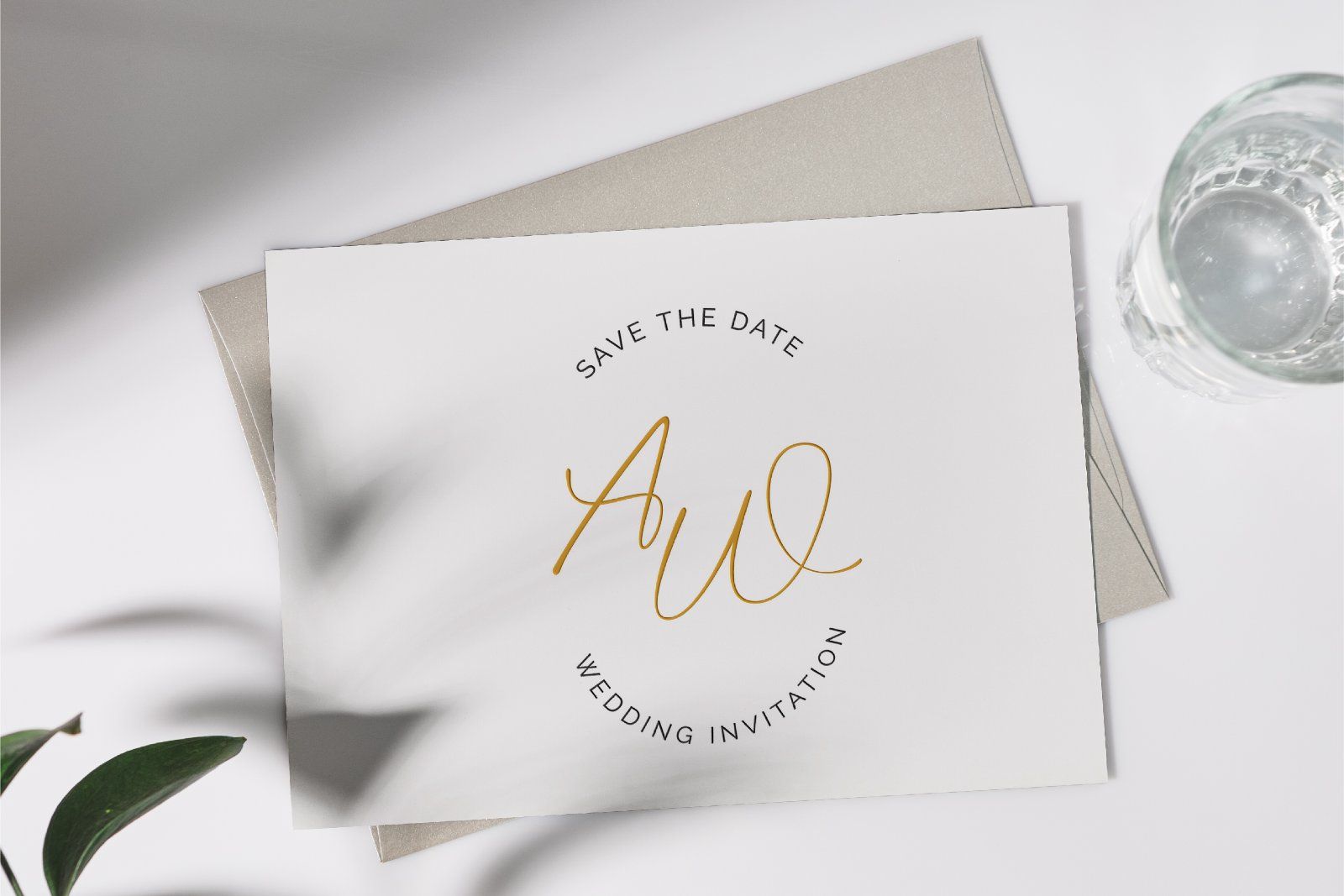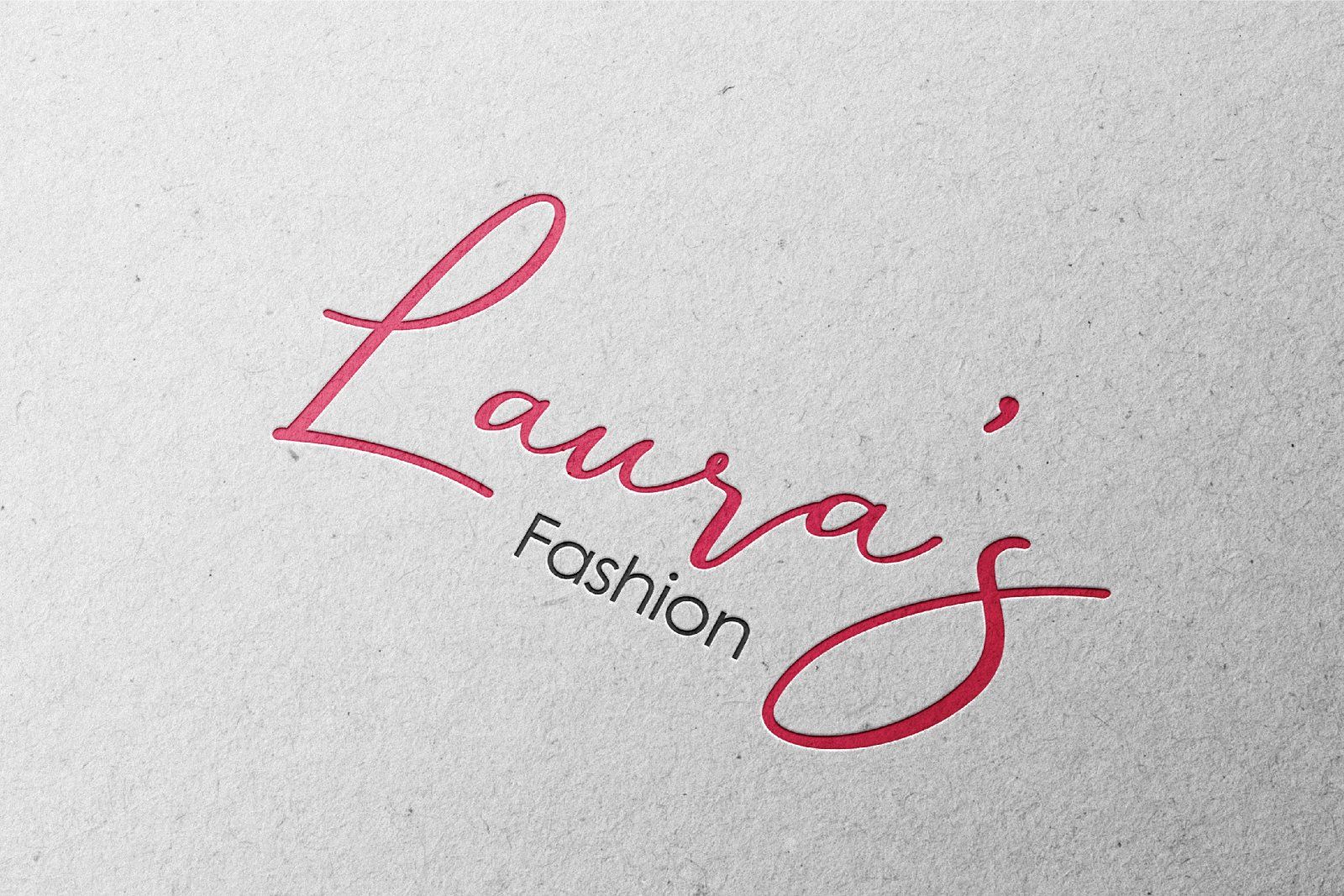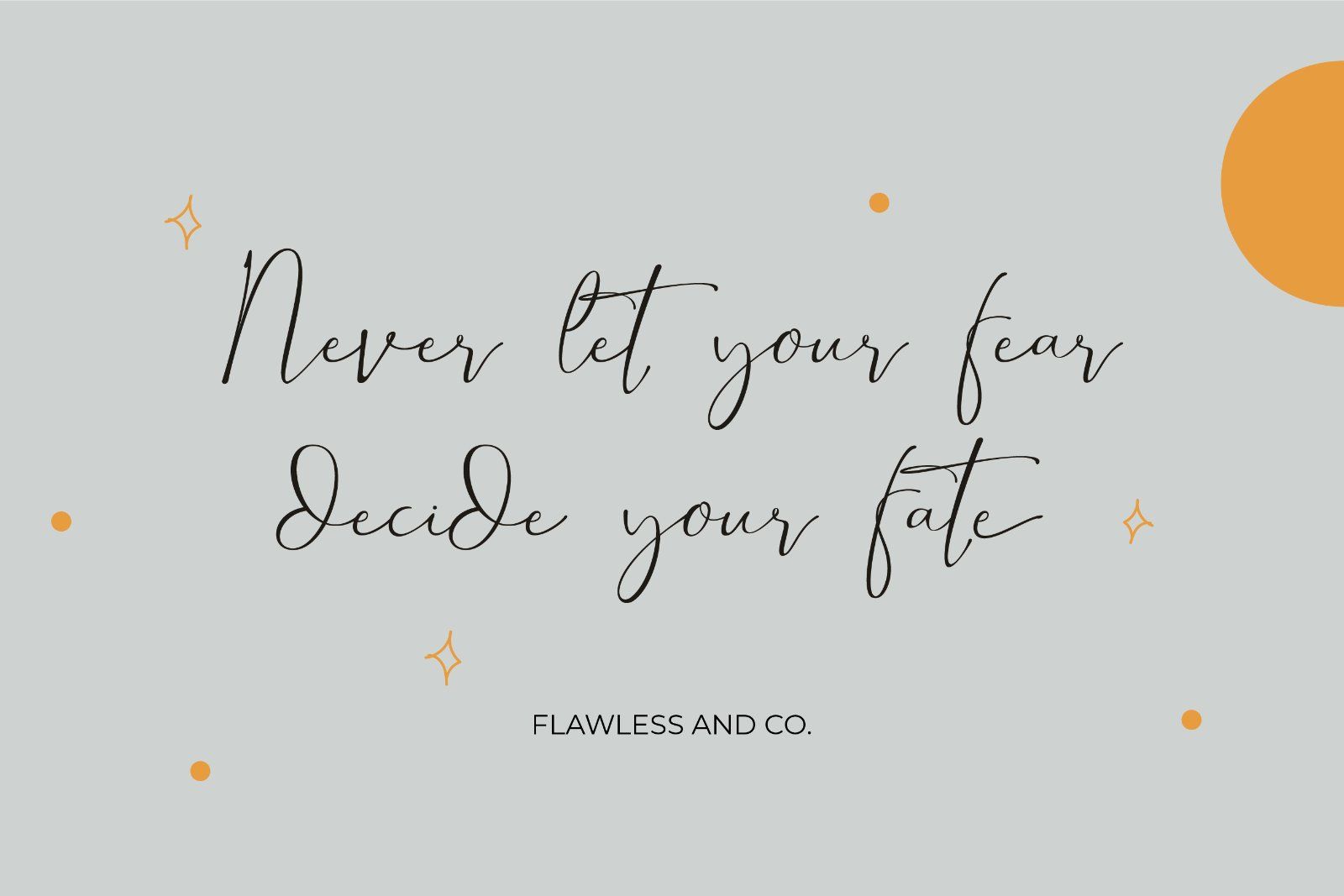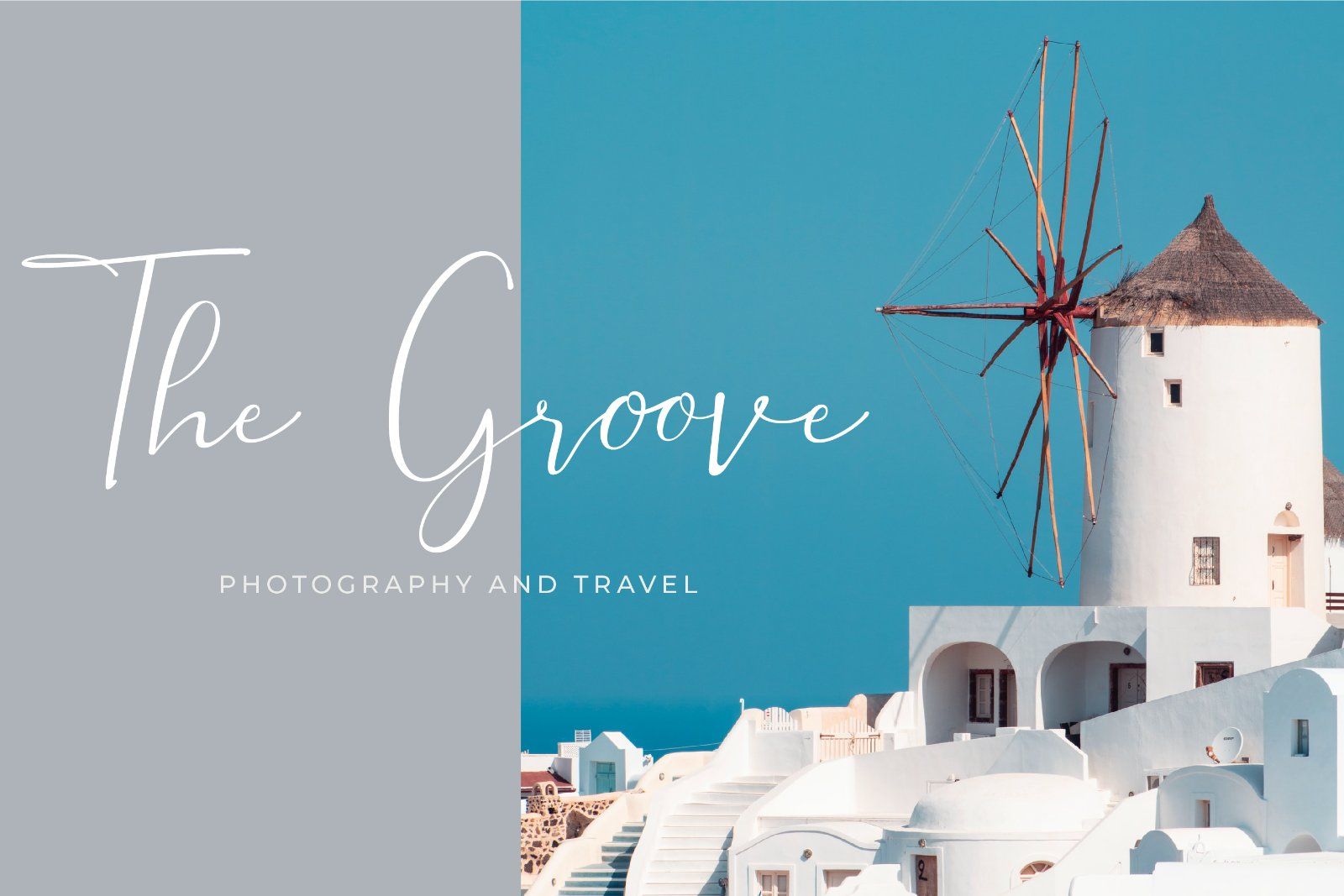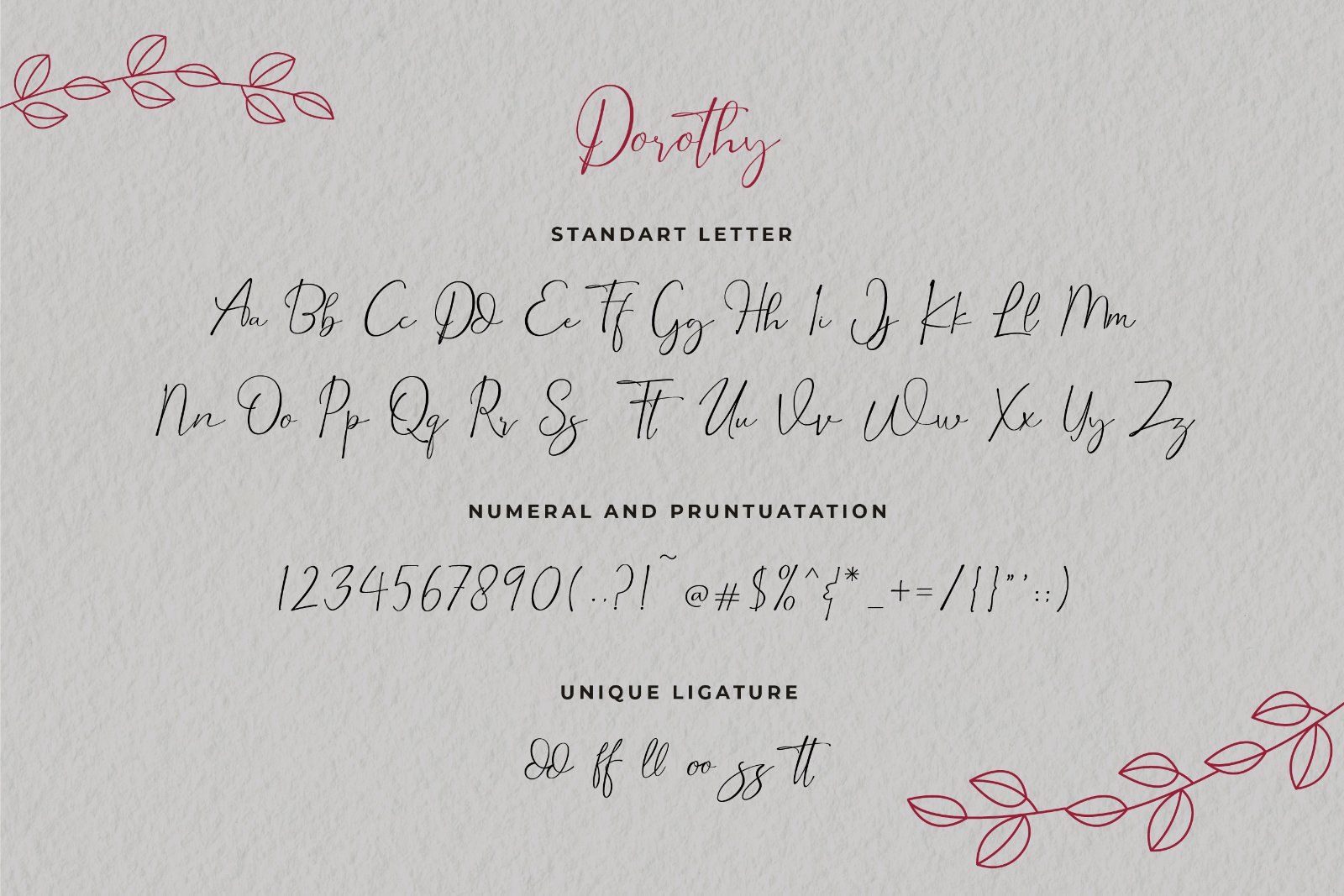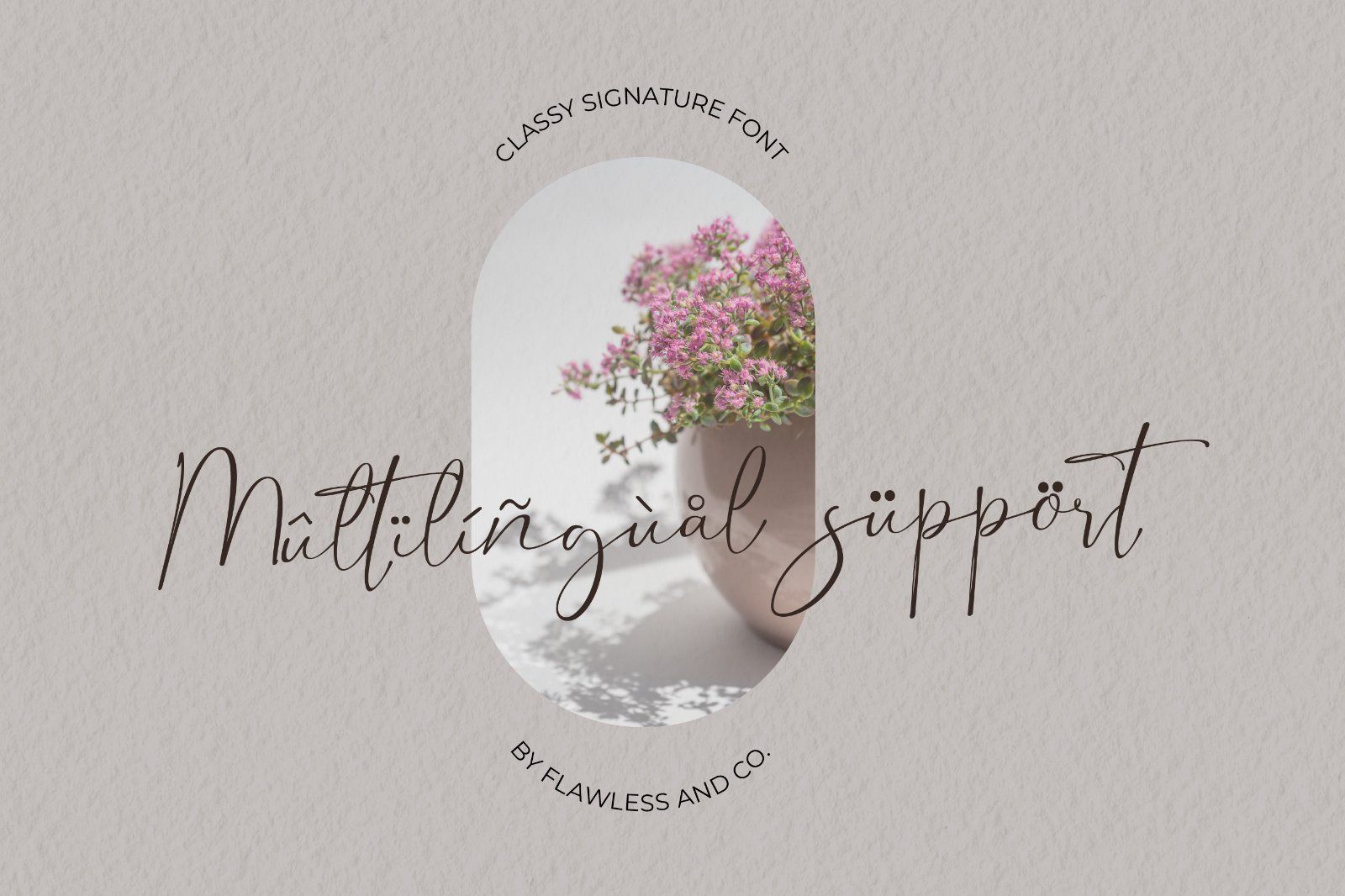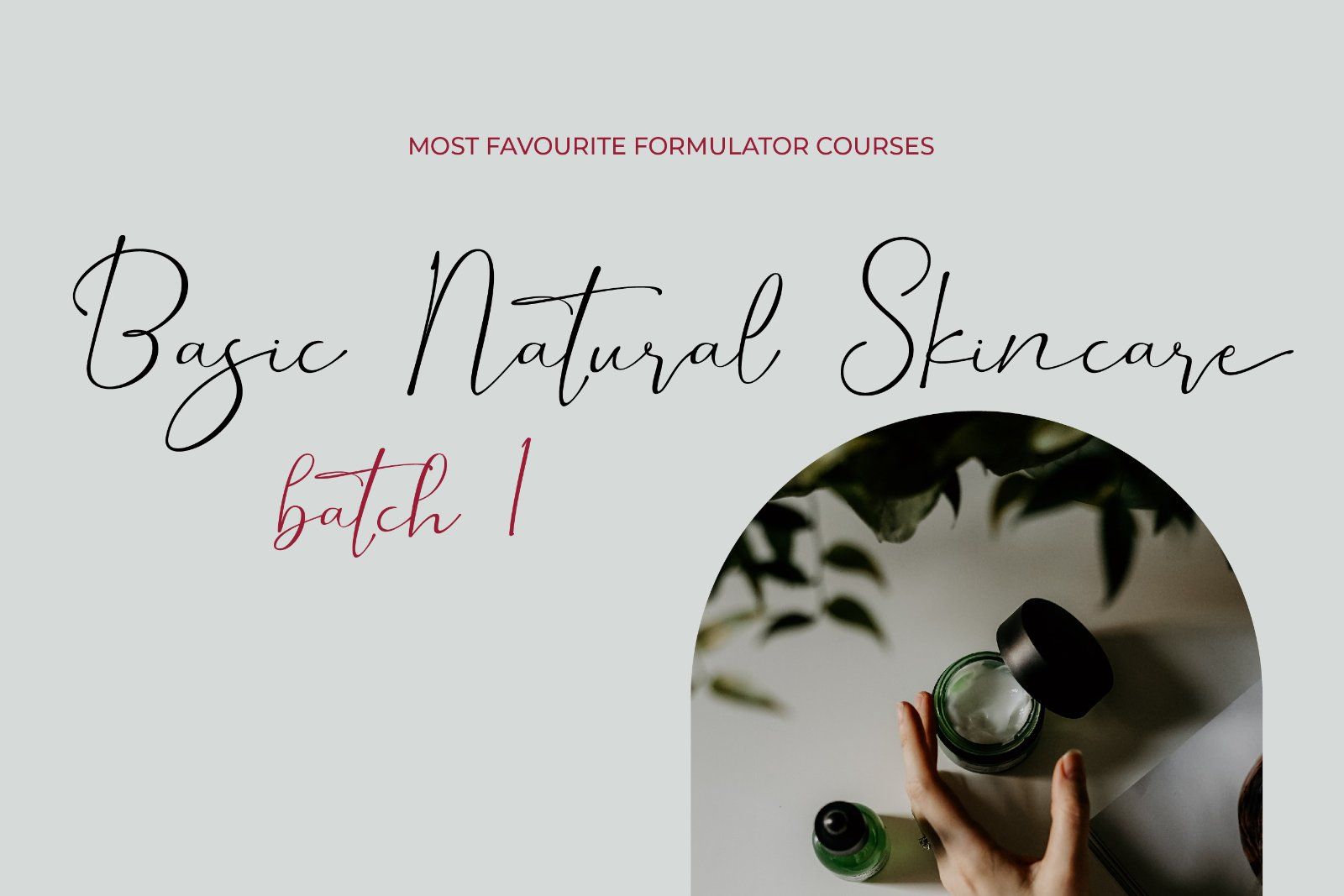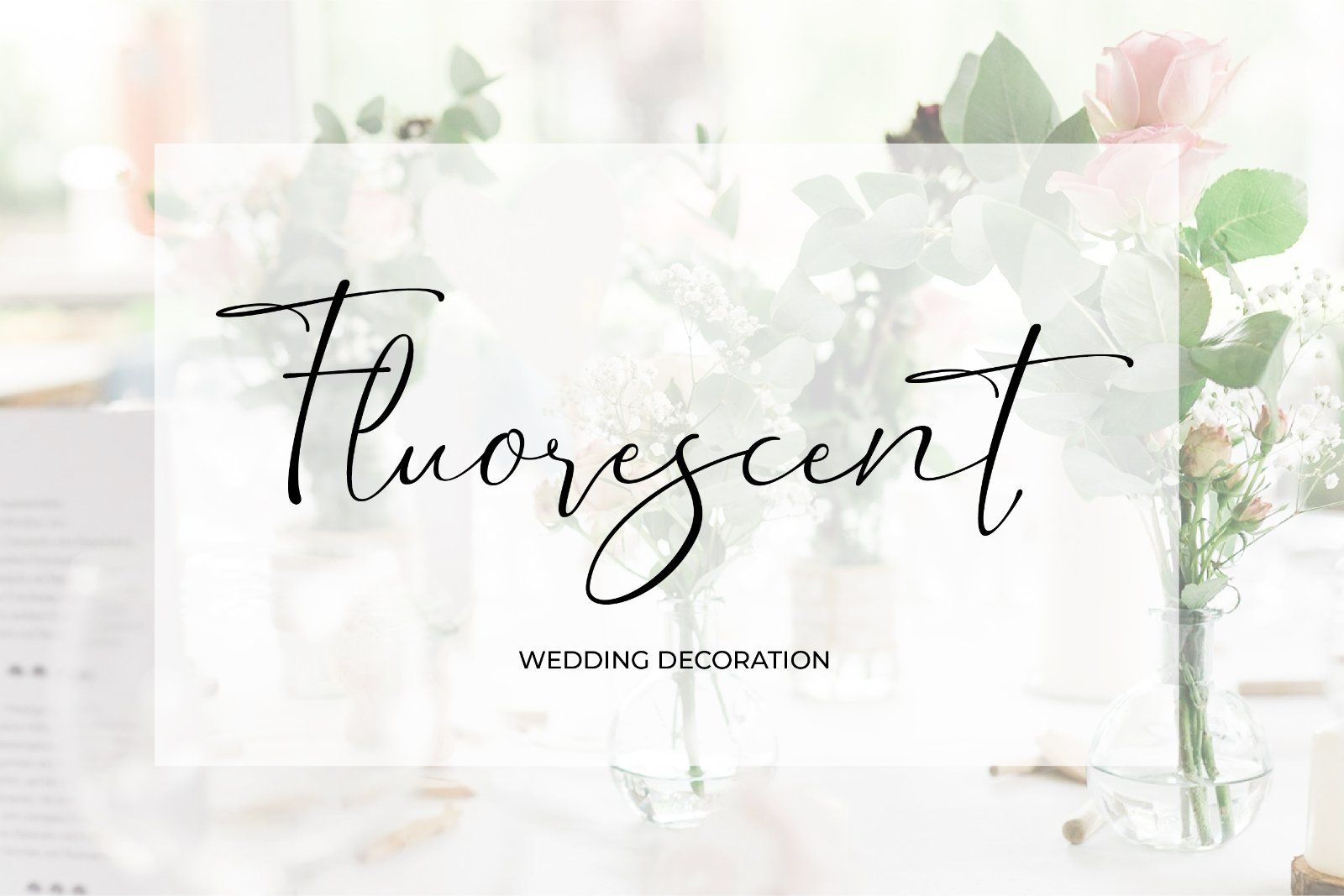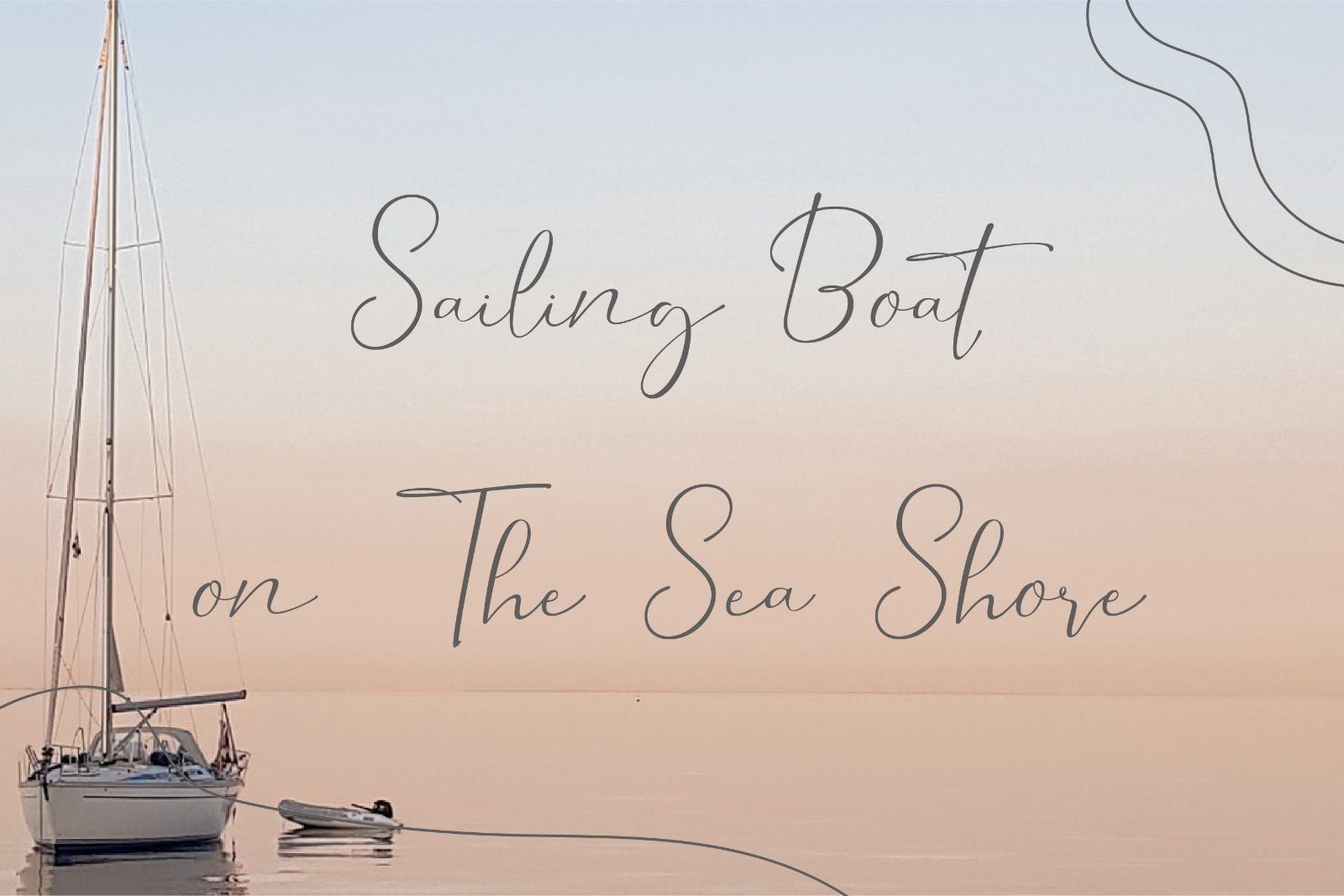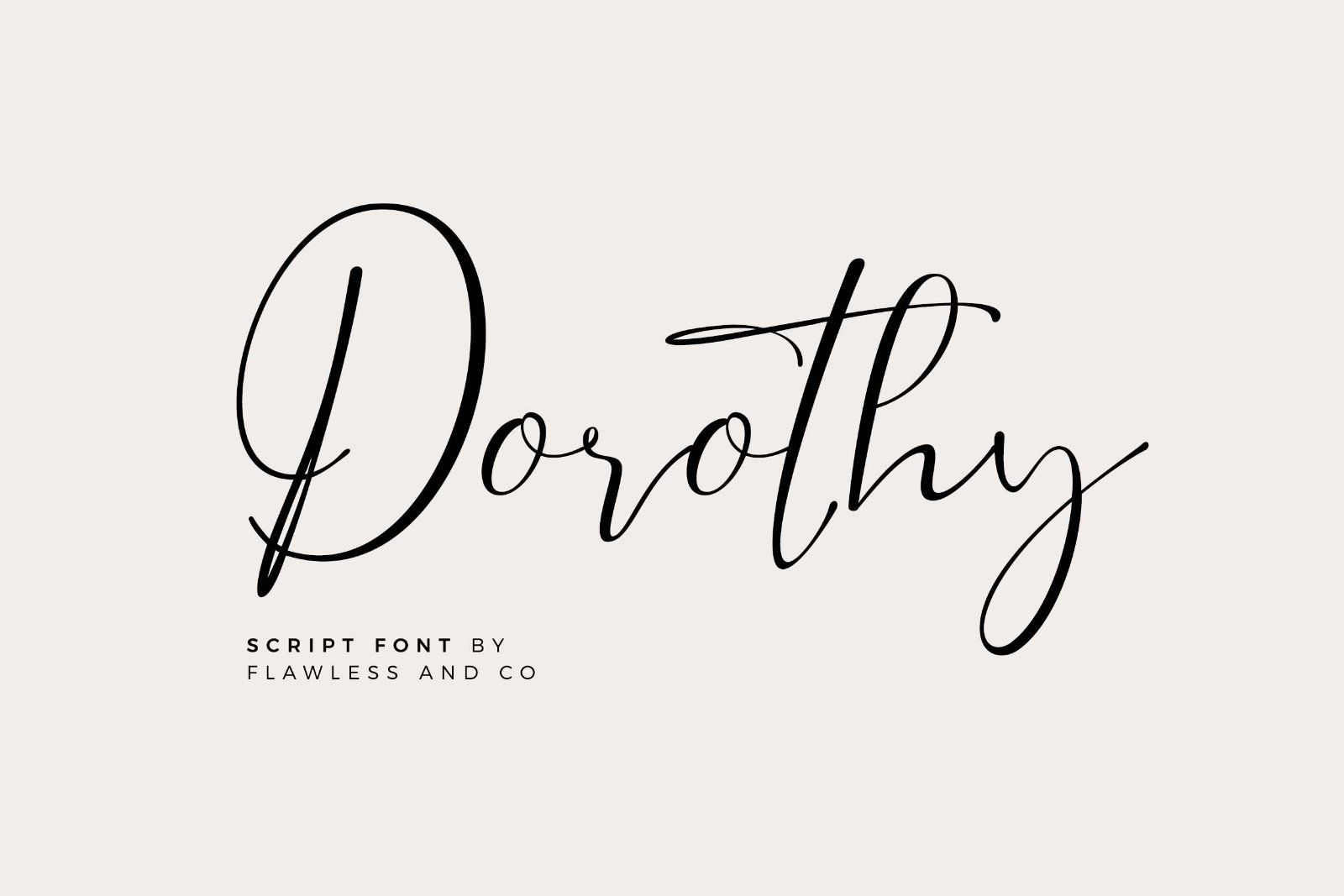
Dorothy is an elegant script font that combines graceful handwritten strokes with a sophisticated and romantic character. Featuring flowing curves, delicate letterforms, and beautiful extended swashes, Dorothy creates a refined and personal look with an effortless handwritten feel.
• Features :
• Uppercase alphabet A-Z
• Lowercase alphabet a-z
• Alternate Character
• Numbers 0-9
• Some punctuation